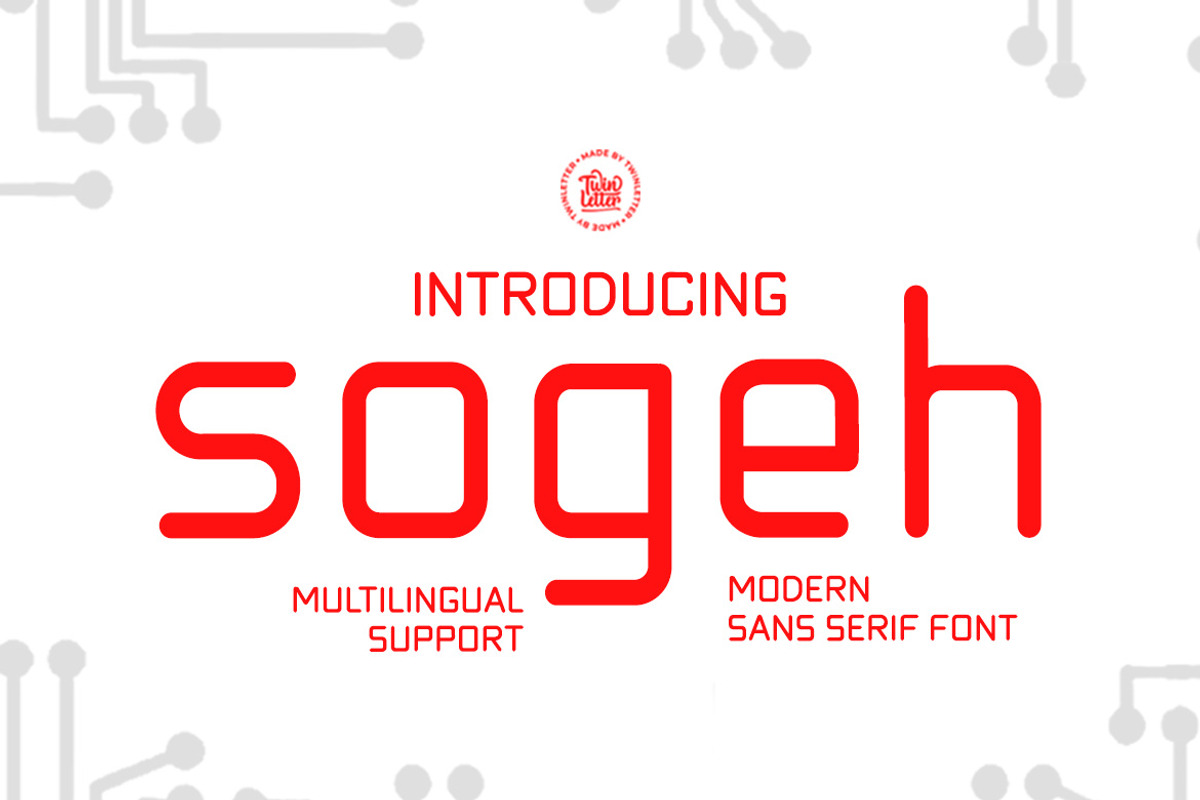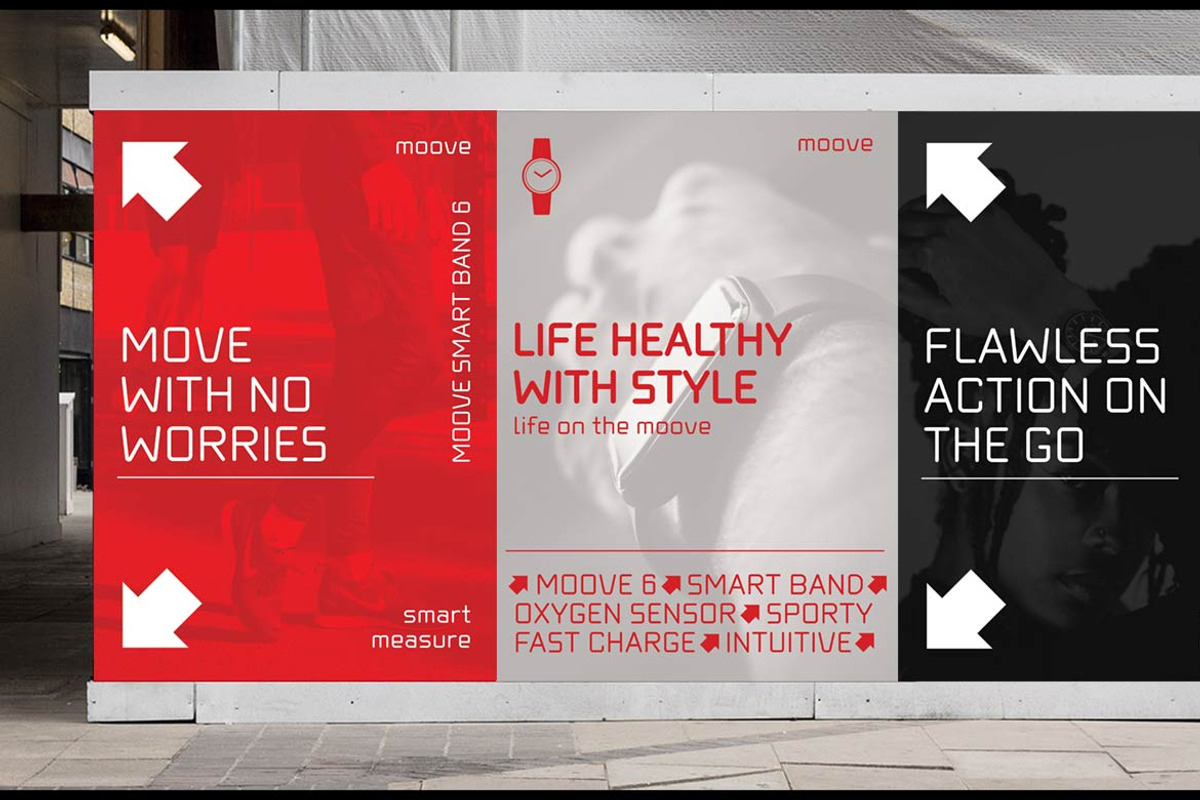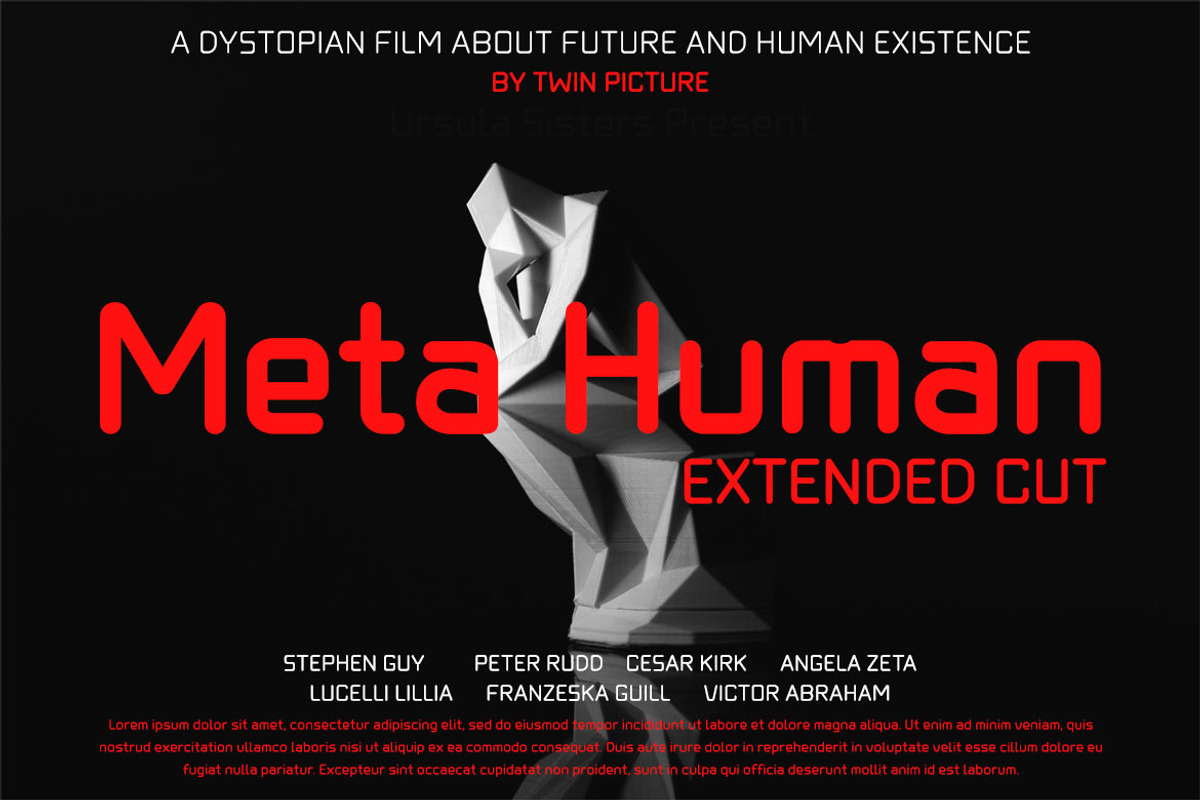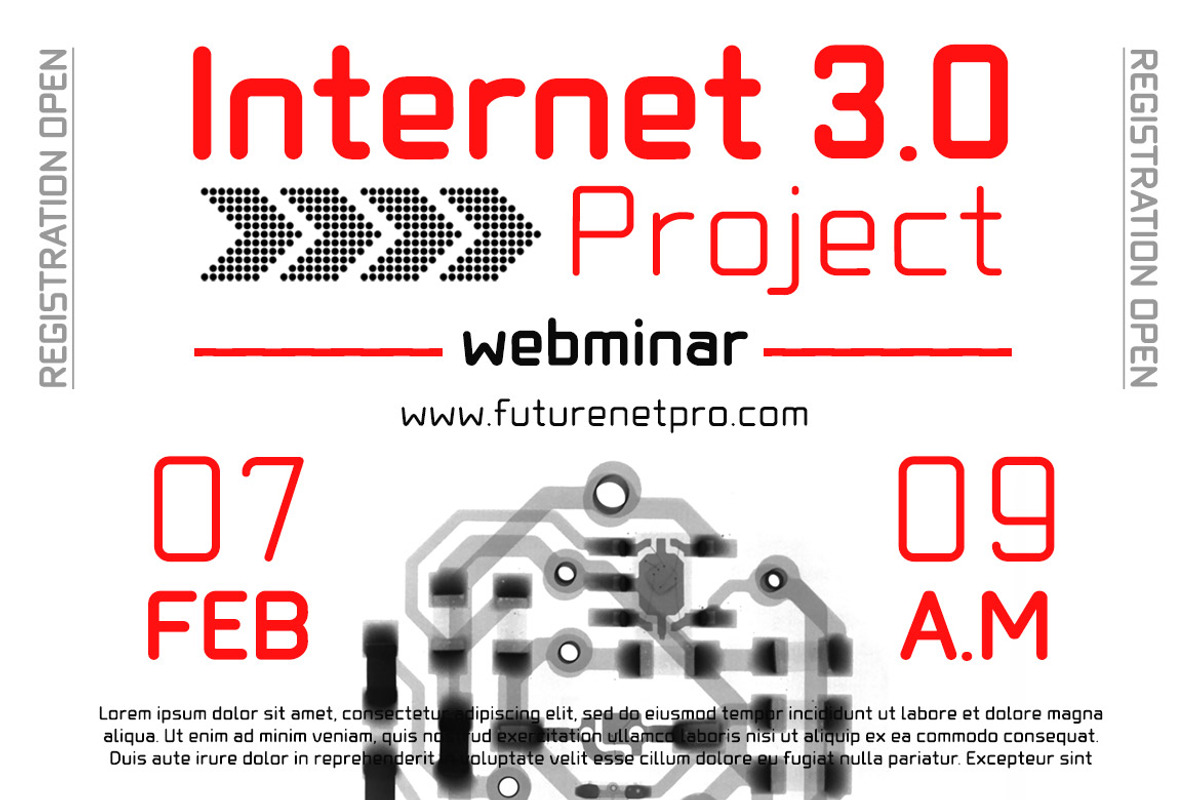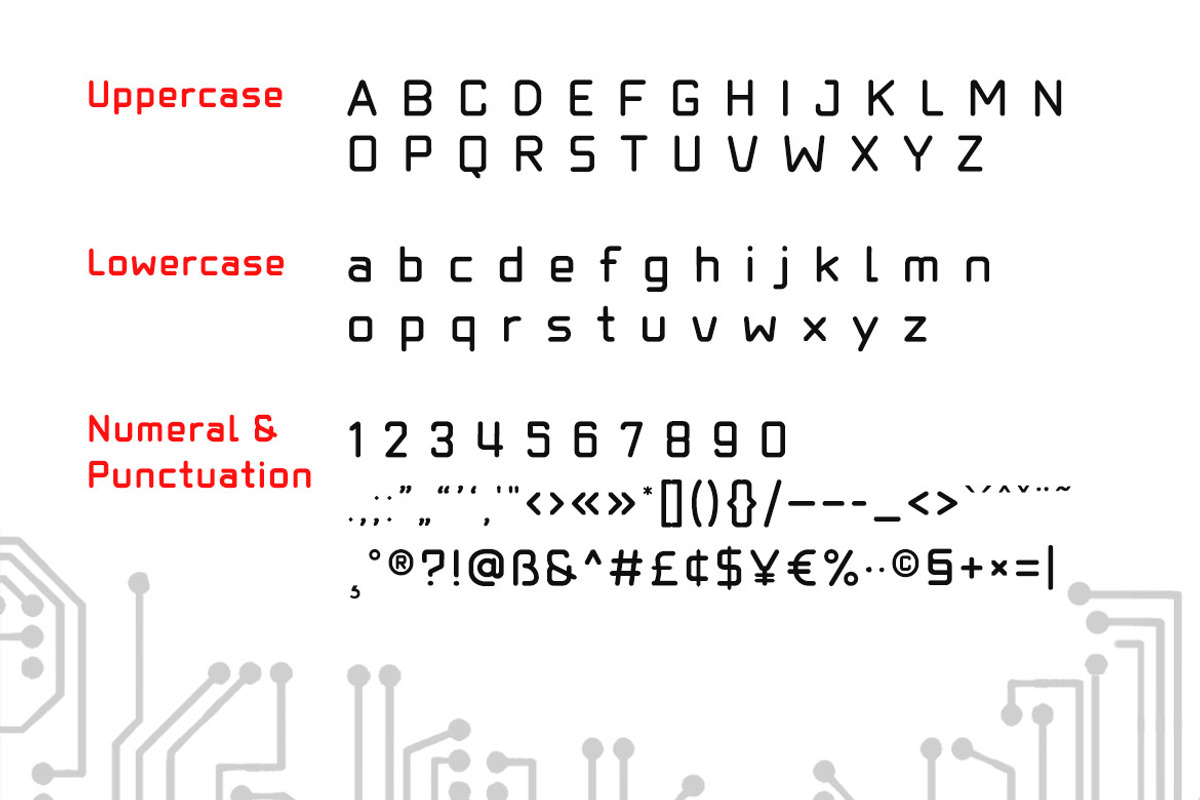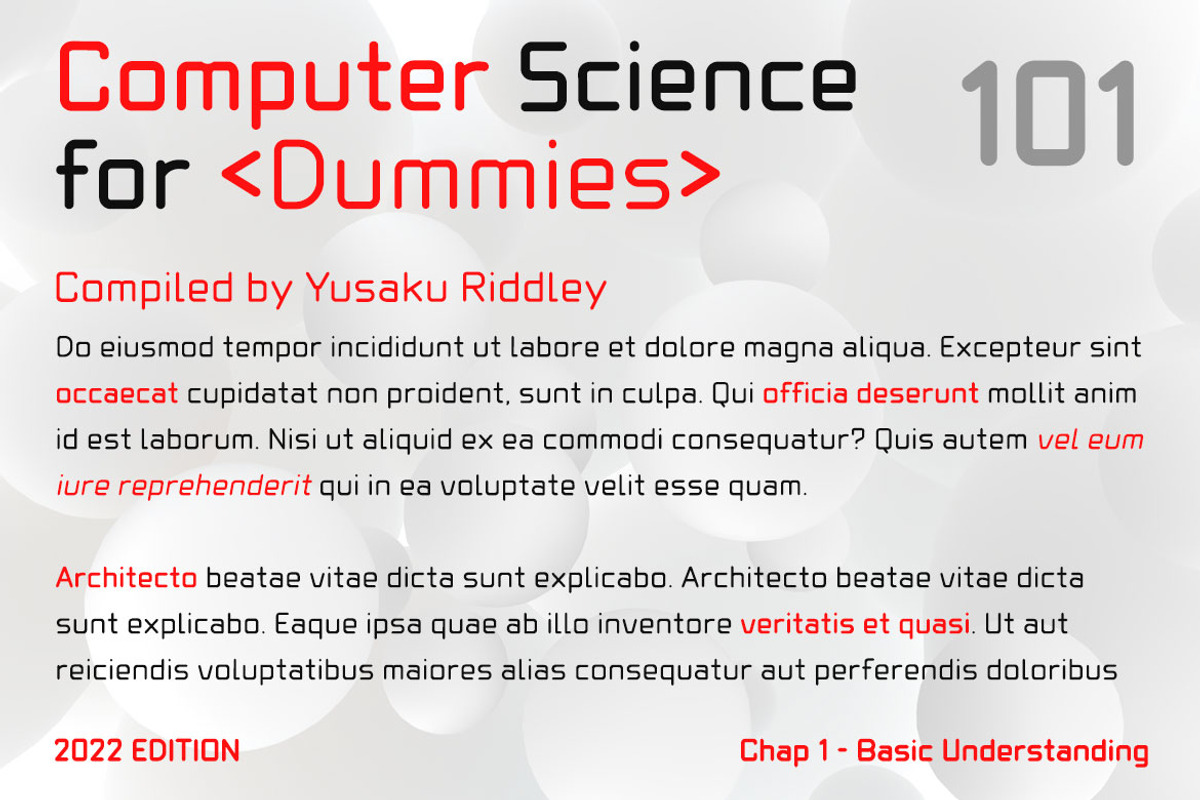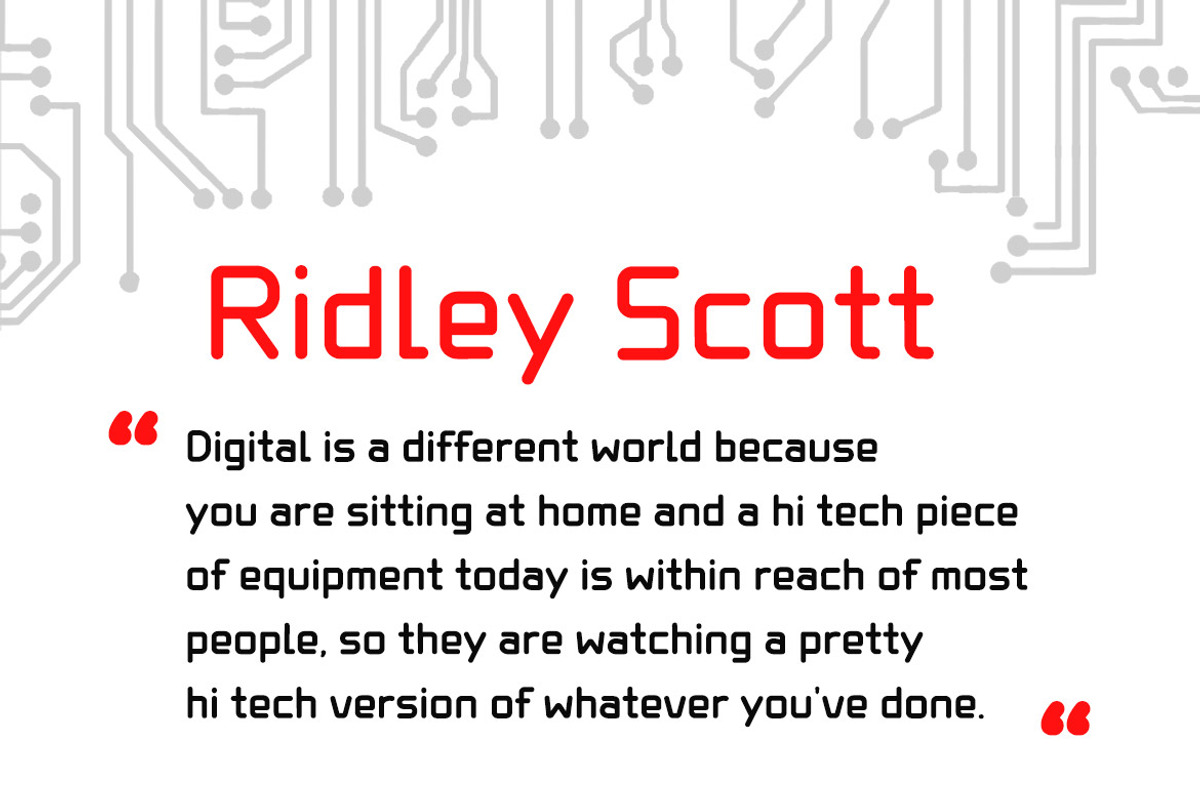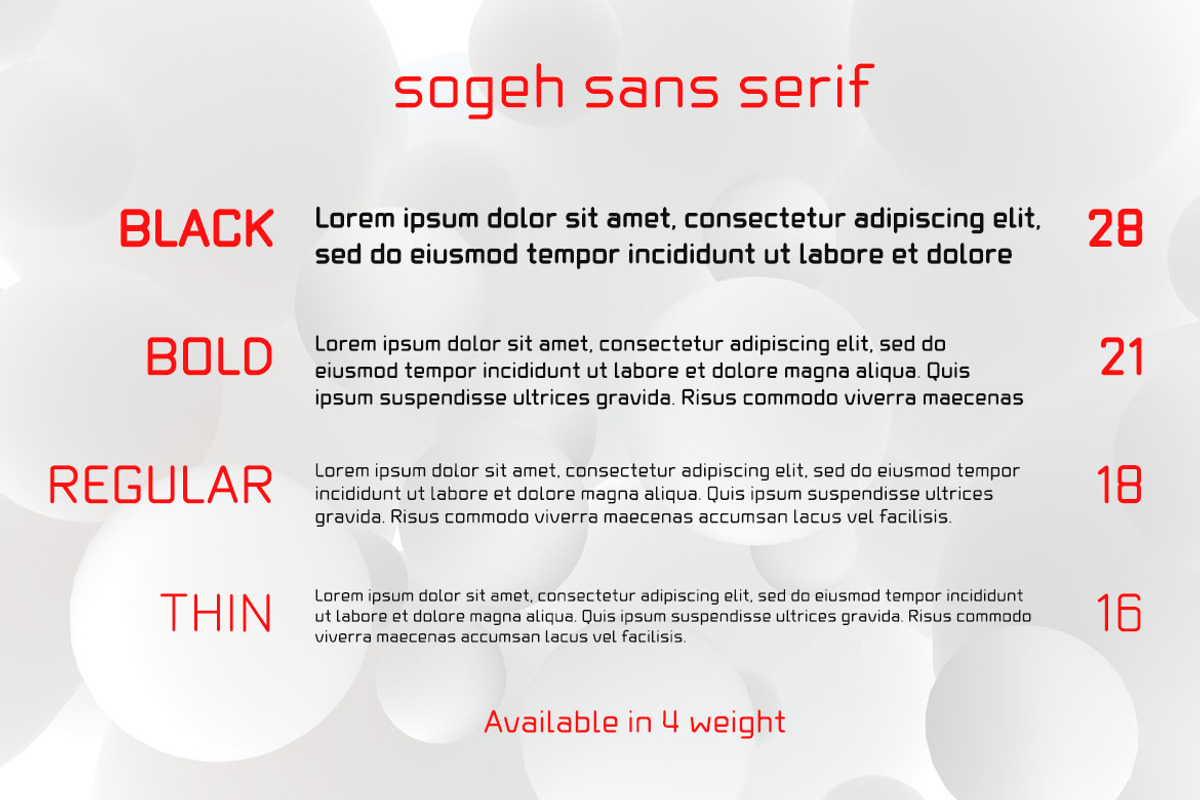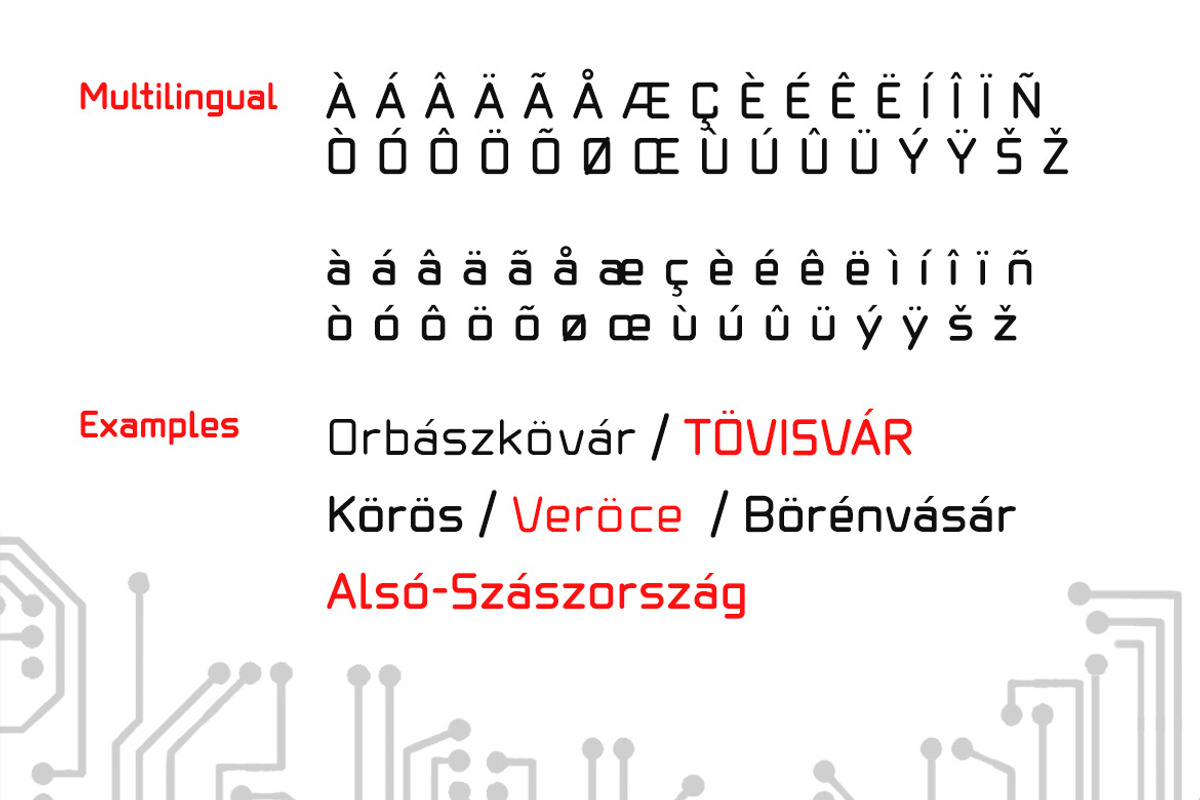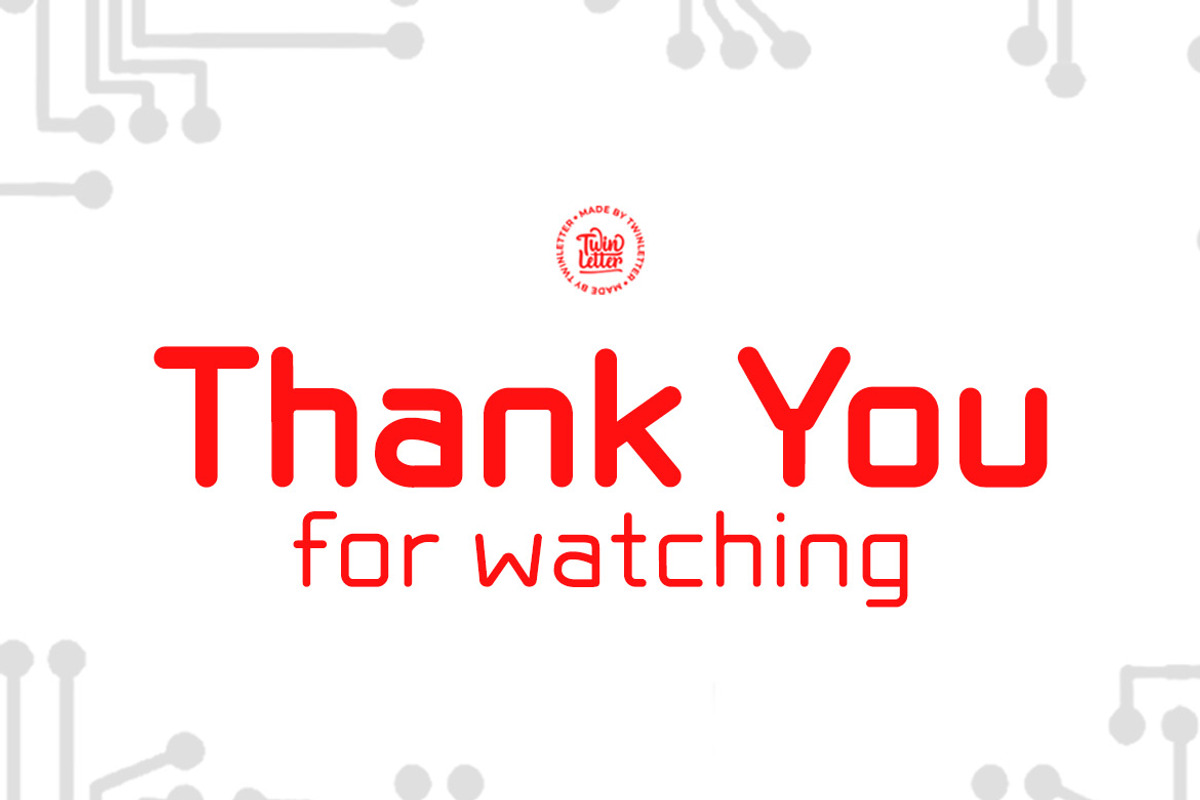
Sogeh
Sogeh is a sanserif font with a simple and straightforward design. This basic font has a modern shape and an exotic appearance while being comfortable and attractive to the eye. With this font, all of your special projects will look luxurious, cool, and well-liked by a large portion of your audience. Use this typeface to achieve the best possible outcomes in all of your projects.
of course, your various design projects will be perfect and extraordinary if you use this font because this font is equipped with a font family, both for titles and subtitles and sentence text, start using our fonts for your extraordinary projects.